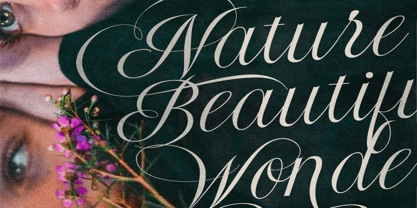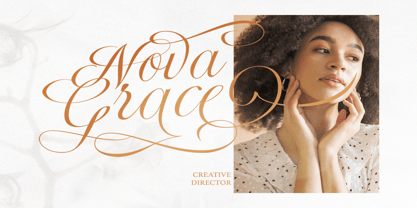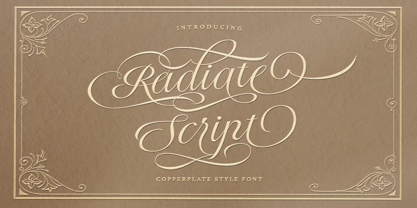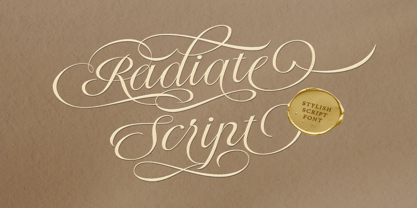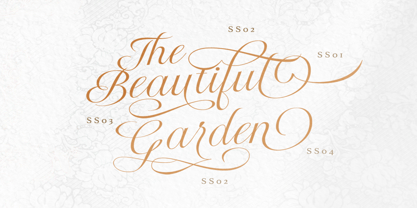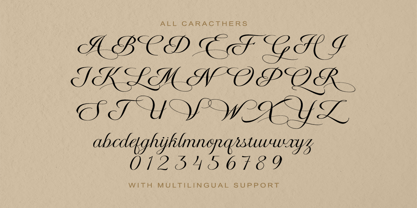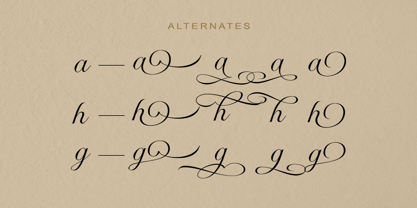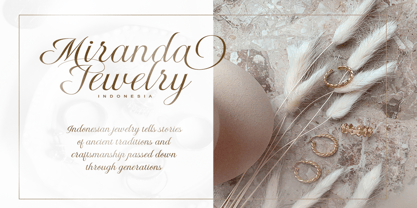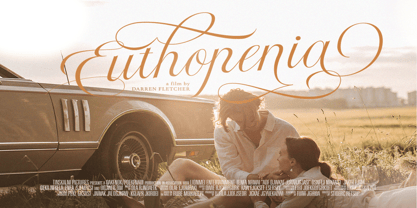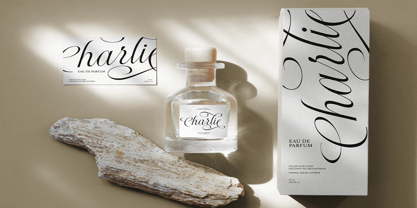
Radiate Script
The Radiate Script Font Family was designed by Sarid Ezra, Dzikrul Aulia and published by Bale Type. Radiate Script contains 1 styles.
Radiate is a stylish wedding script that have many swash alternates! With all the alternate characters, you can make your design more elegant and sophisticated. You can use this font for many purposes, such as quote, and branding, logo, especially wedding invitations. This font also support multi language!